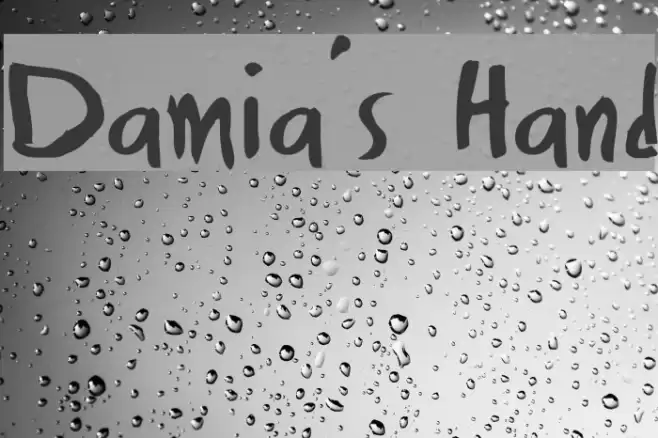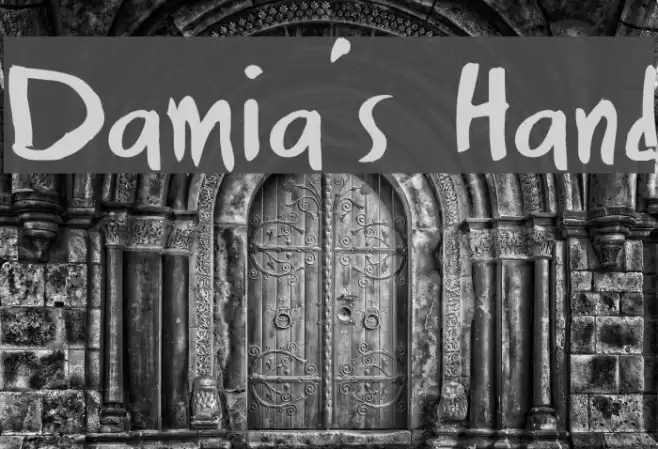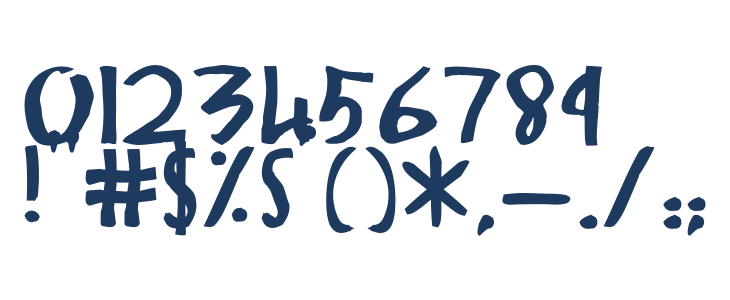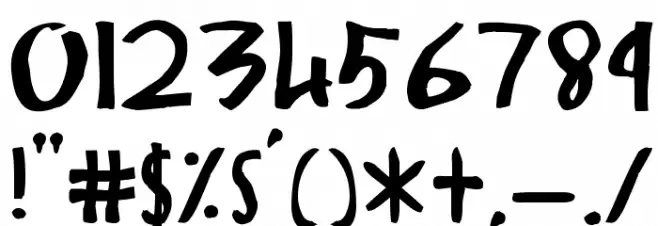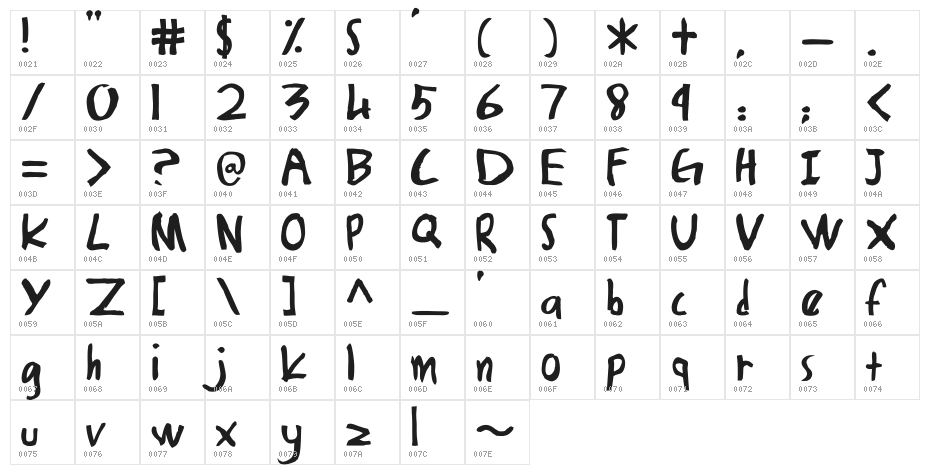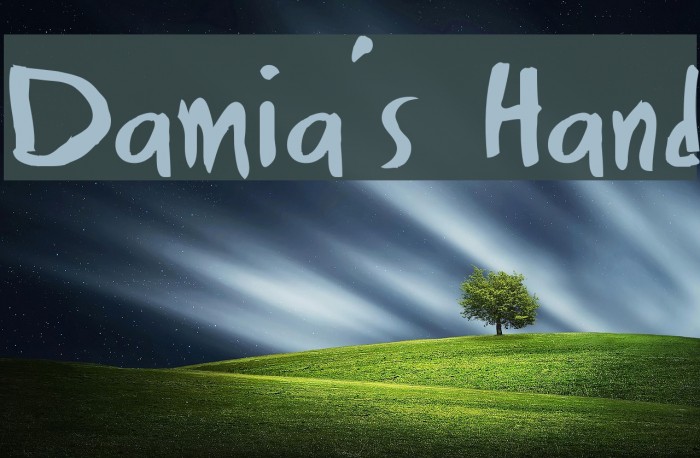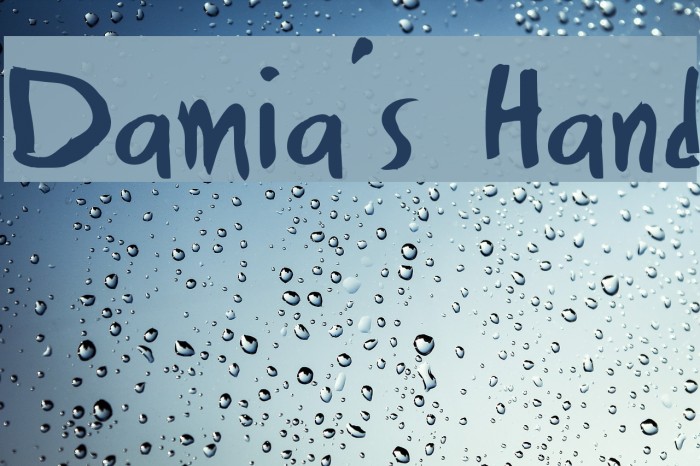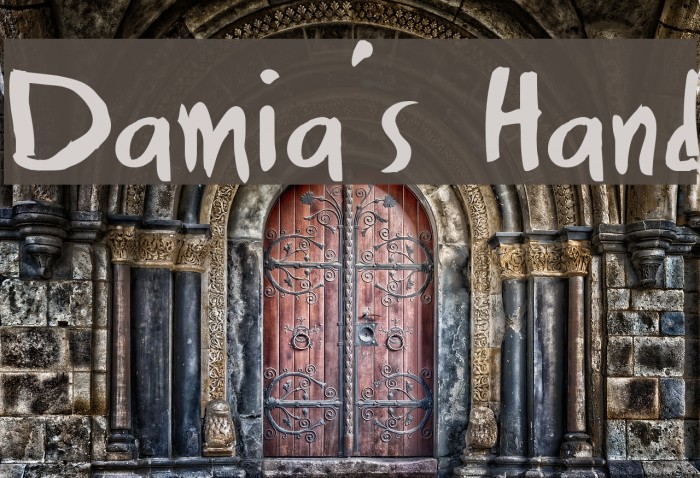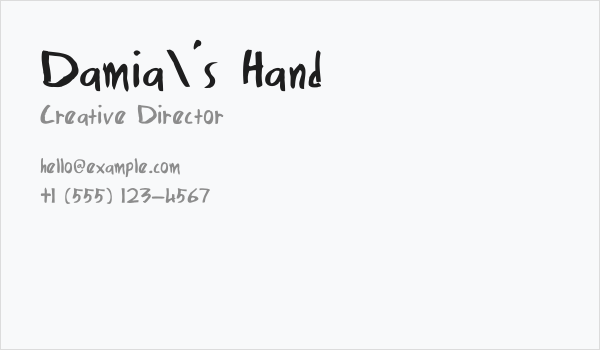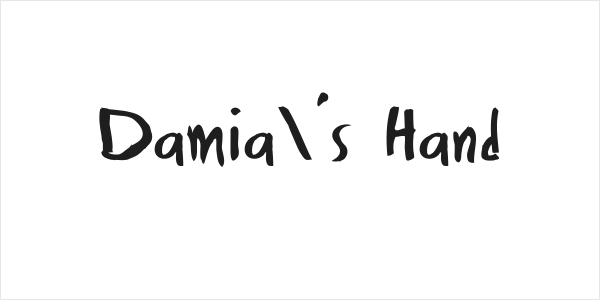
Damia's Hand Font
Damia's Hand Description
This font features a playful and informal handwritten style, characterized by its uneven strokes and slightly irregular shapes. The letters have a casual, organic feel, with varying thickness that adds to its dynamic appearance. The uppercase and lowercase letters maintain a consistent style, while the numerals and special characters complement the overall aesthetic. This font exudes a friendly and approachable vibe, making it suitable for creative and informal projects.
A playful, informal handwritten font with uneven strokes from Uncategorized fonts.
- Proposed Projects: Ideal for greeting cards, children's books, casual branding, and creative posters.
- Overall Style: Casual
- Use Case: Headlines, Logos, Informal Text